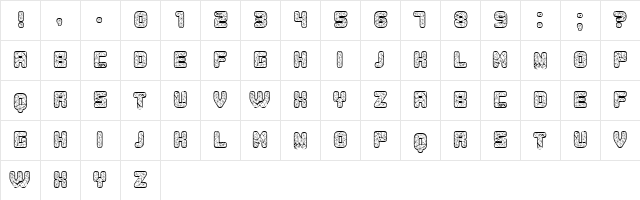
Duration Regular
Design Context for Duration Typeface
Duration is a composed and adaptable typeface that performs quietly and consistently across a wide range of design contexts.